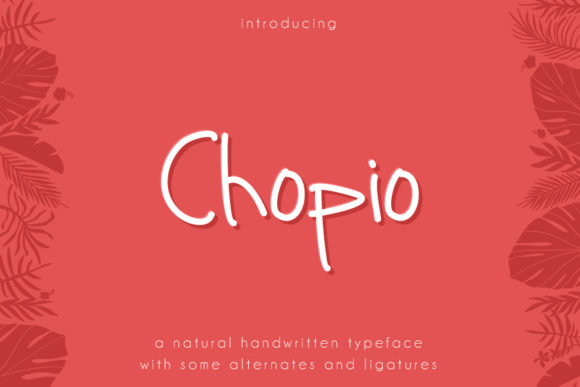
Behold Chopio Font, the exquisite script font family that embodies charm and elegance. Each character, meticulously crafted by svitch and sober, dances across the digital canvas with a handwritten flair that's both captivating and authentic. Discover the enchanting world of Chopio, where simplicity meets sophistication, and words transform into works of art.
Immerse yourself in the beauty of Chopio, a font that seamlessly blends the classic allure of calligraphy with the freshness of modern design. Its graceful curves and delicate strokes evoke a sense of timeless elegance, while its playful personality adds a touch of whimsy to your creations. With Chopio, your words will dance off the page, leaving a trail of visual delight in their wake.
Unleash your creativity and let Chopio become your trusted companion in expressing your unique style. Whether you're designing logos that demand attention, crafting social media posts that captivate your audience, or embarking on crafty DIY projects that showcase your individuality, Chopio is your perfect partner. Its versatility knows no bounds, making it the go-to choice for a myriad of projects.
Embark on a typographic adventure with Chopio and let your imagination soar. Transform your digital designs into masterpieces, elevate your branding to new heights, and create social media content that sparks conversations. Chopio is more than just a font; it's an artistic expression that reflects your passion and creativity.